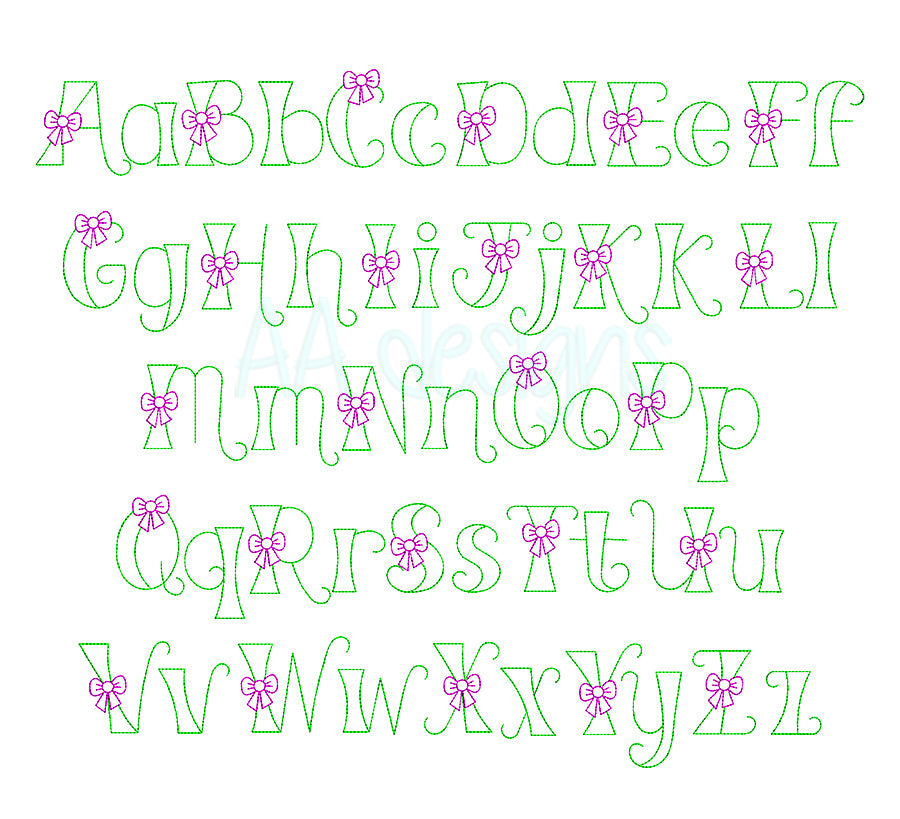
Bow embroidery font. Embroidery alphabet with bowtie. BX format
Bow embroidery font
This font comes with letters in 3 sizes, A-Z (Upper case), a-z (Lower case)